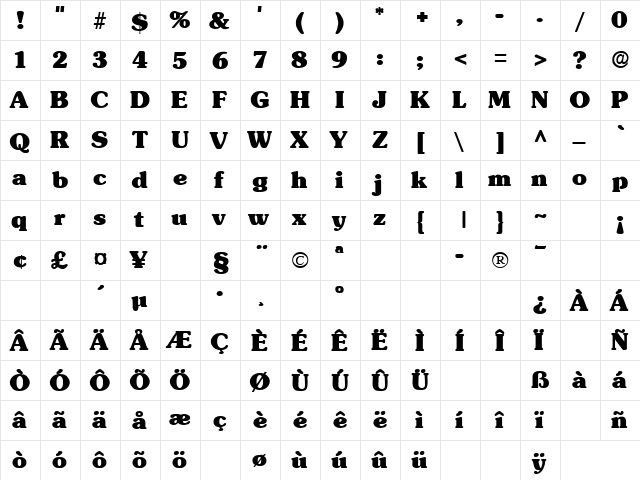
Corruption 2 Regular Font Preview
Corruption 2 Regular
Design Context for Corruption 2 Typeface
Corruption 2 takes a measured approach to typography — its balanced proportions and neutral character make it a reliable workhorse for both digital and print work.